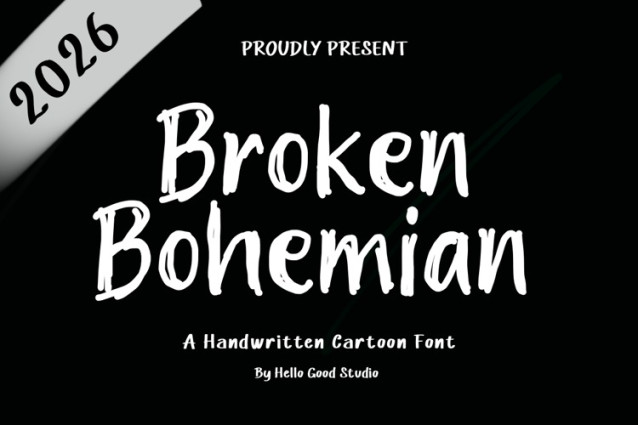
Broken Bohemian Font
Broken Bohemian Font is a simple and friendly handwritten font. Its natural and unique style makes it incredibly fitting to a large pool of designs. The only limit is your imagination!